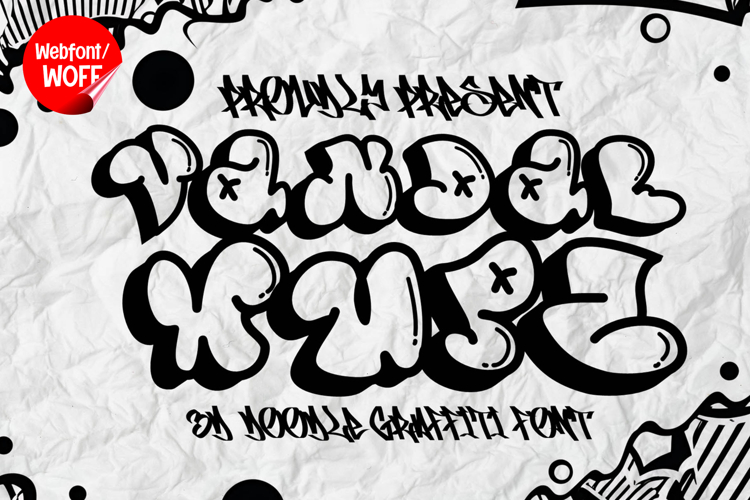
Vandal Wupz | 3D Doodle Graffiti Throw-Up Webfont
Vandal Wupz is a 3D doodle graffiti throw-up webfont designed to capture the playful, bold, and expressive essence of street graffiti in a modern digital format. Inspired by classic throw-up lettering and doodle-style sketches, this font combines thick shapes with dimensional layering to create a lively and energetic visual impact. It is a perfect choice for projects that aim to stand out with a fun, urban, and creative typographic style.
Vandal Wupz features a complete set of uppercase characters designed with bold graffiti throw-up forms. The rounded and exaggerated shapes give the font a playful and dynamic look, while the 3D doodle effect adds depth and dimension. These letterforms are ideal for headlines, banners, hero sections, and featured content where strong visual presence is needed. The combination of thick strokes and dimensional style helps create a clear visual hierarchy.
In addition to letters, the font includes numbers and punctuation, allowing flexible usage across various parts of a website. It works well for promotional text, event announcements, pricing displays, and navigation highlights. Each character maintains the same doodle graffiti style, ensuring a cohesive and consistent visual identity throughout the design.
With multilingual support, Vandal Wupz includes a wide range of accented characters, making it suitable for international websites and global audiences. This allows content to be displayed clearly across different languages while preserving the unique graffiti aesthetic.
The 3D doodle graffiti throw-up style of Vandal Wupz makes it especially suitable for urban-themed websites, streetwear brands, music platforms, gaming interfaces, and creative portfolios. Its playful and exaggerated forms add energy and personality, helping designs stand out in competitive digital spaces. The doodle-inspired approach also brings a fun and approachable feel to the overall design.
Despite its bold and expressive style, Vandal Wupz is designed with readability in mind. The spacing and structure of each character are carefully balanced to ensure clarity, particularly in display sizes. This makes it effective for impactful headings and short content elements where both style and legibility are important.
Vandal Wupz is a webfont that blends graffiti throw-up aesthetics with doodle creativity and dimensional design. Its bold shapes, 3D effect, and playful energy create a distinctive typographic presence that enhances modern website design. For projects that require a fun, urban, and highly expressive font, Vandal Wupz offers a powerful and engaging solution.